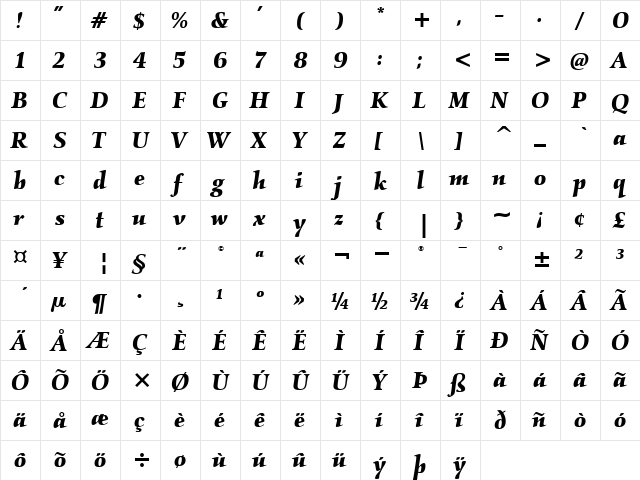
KallosITC TT BoldItalic
Design Context for KallosITC TT Typeface
KallosITC TT offers clean, dependable letterforms without strong stylistic allegiance, making it a practical choice for designers who need flexibility. The slanted form adds forward momentum and visual energy. Its bold stroke weight gives it real presence on the page.
Pro Tip: Try KallosITC TT for annotation and caption copy alongside an upright companion — the contrast in angle creates a dynamic but ordered typographic system.